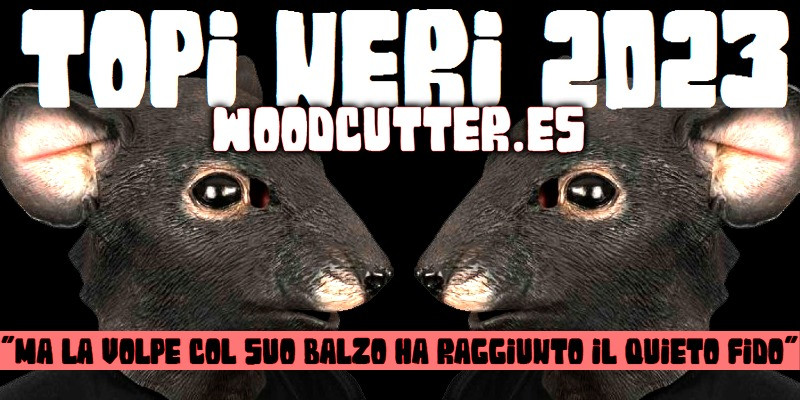
Topi Neri 2023 Font
Topi Neri 2023 Display Font, It would be a perfect choice to design posters, affiches, logos, t-shirt and magazine prints, eye-pleasing typographic designs and more.
Topi Neri 2023